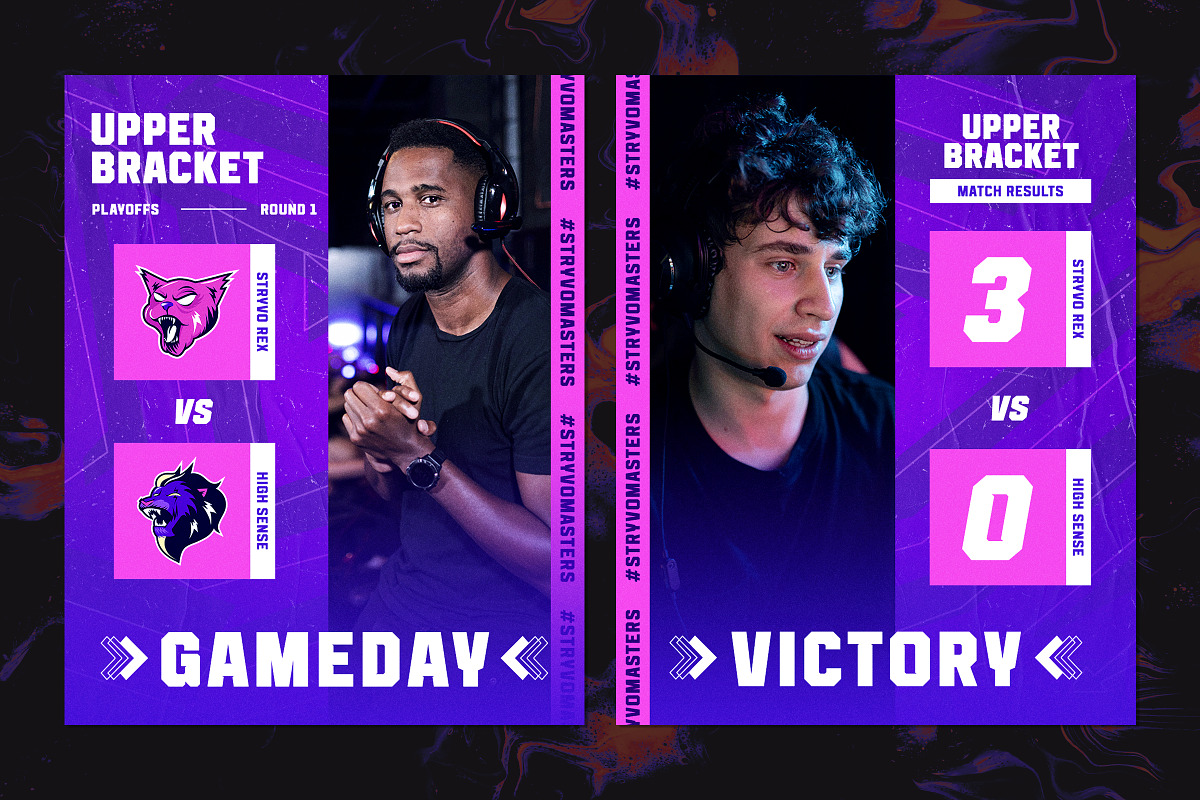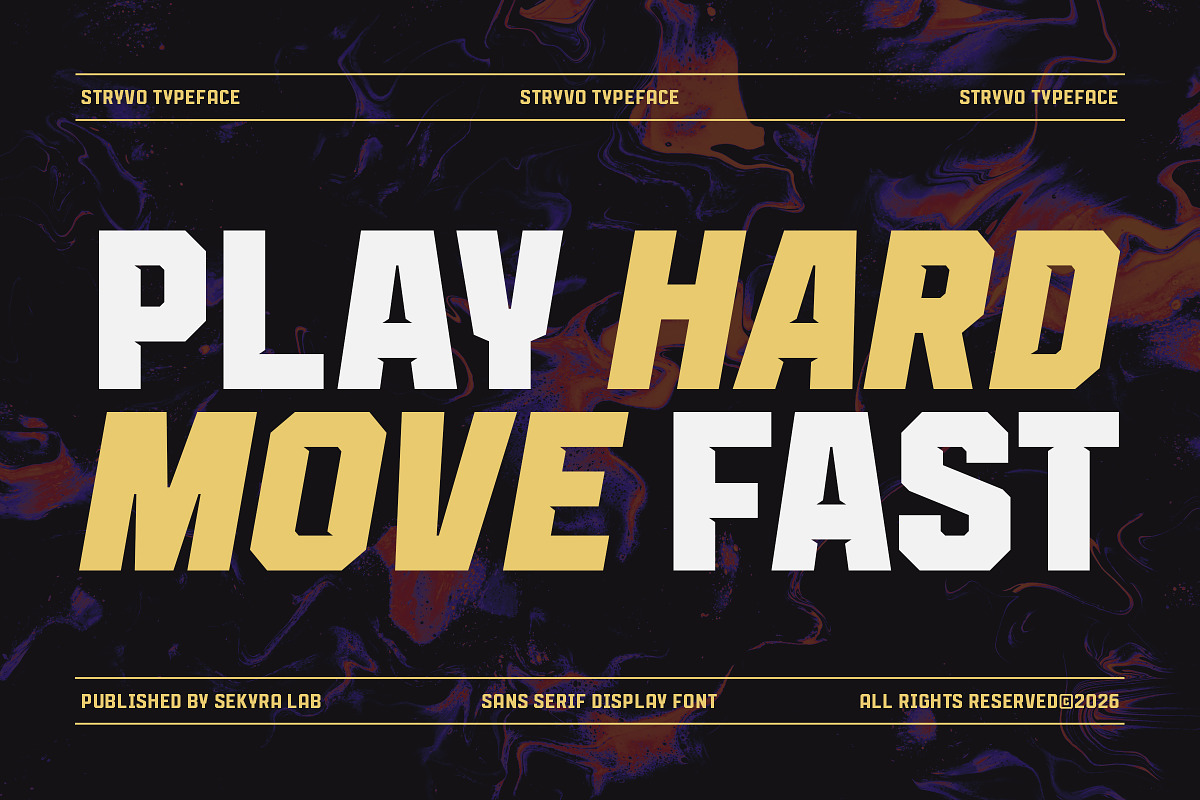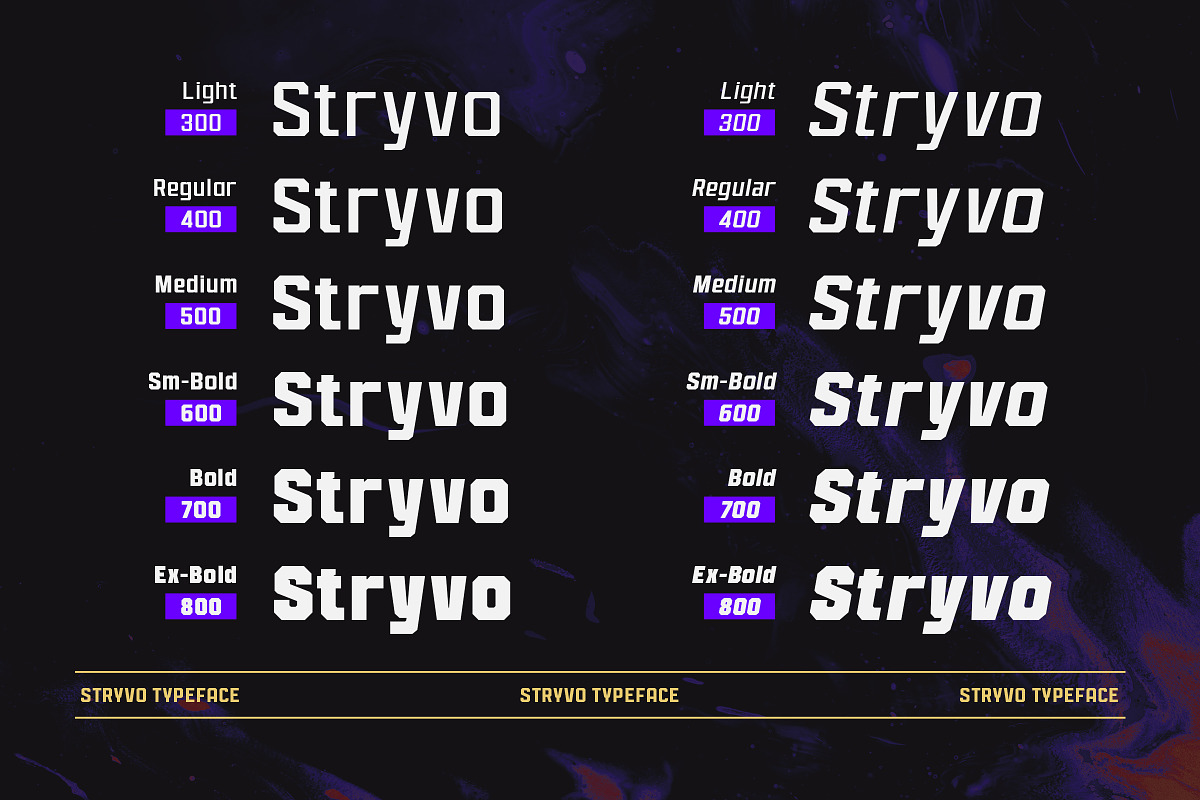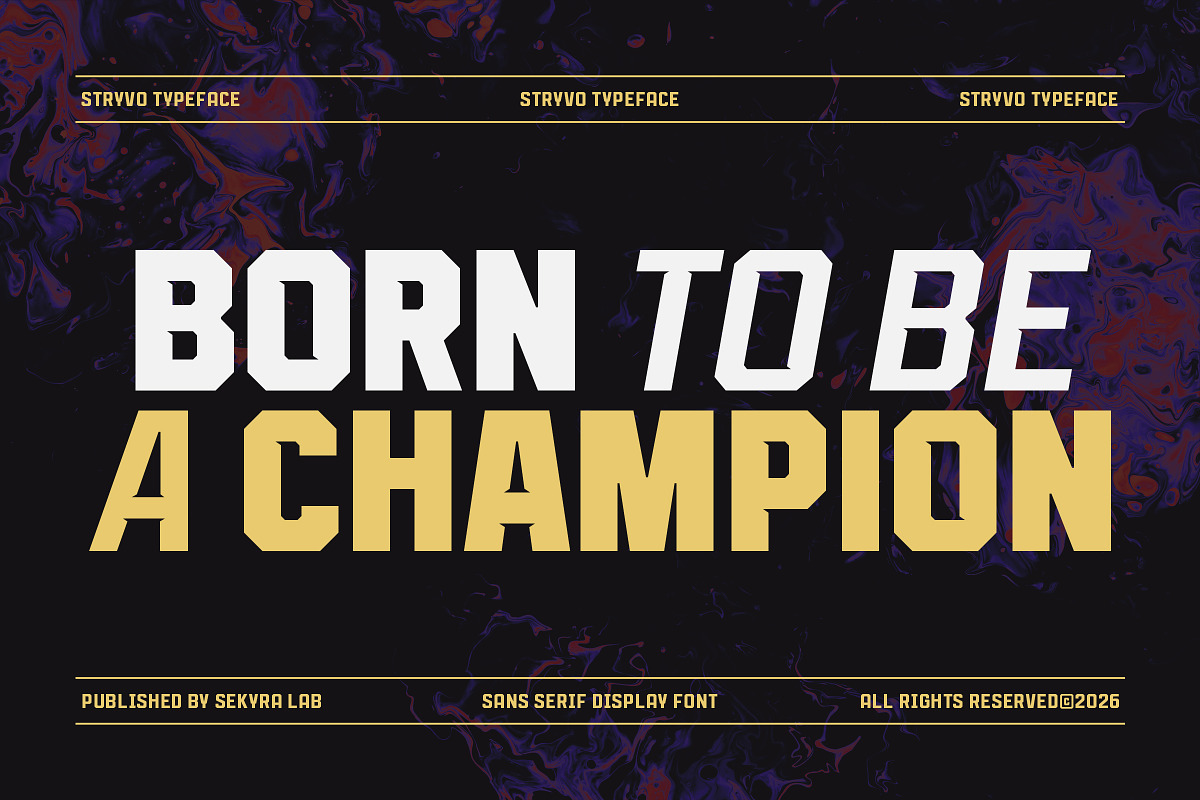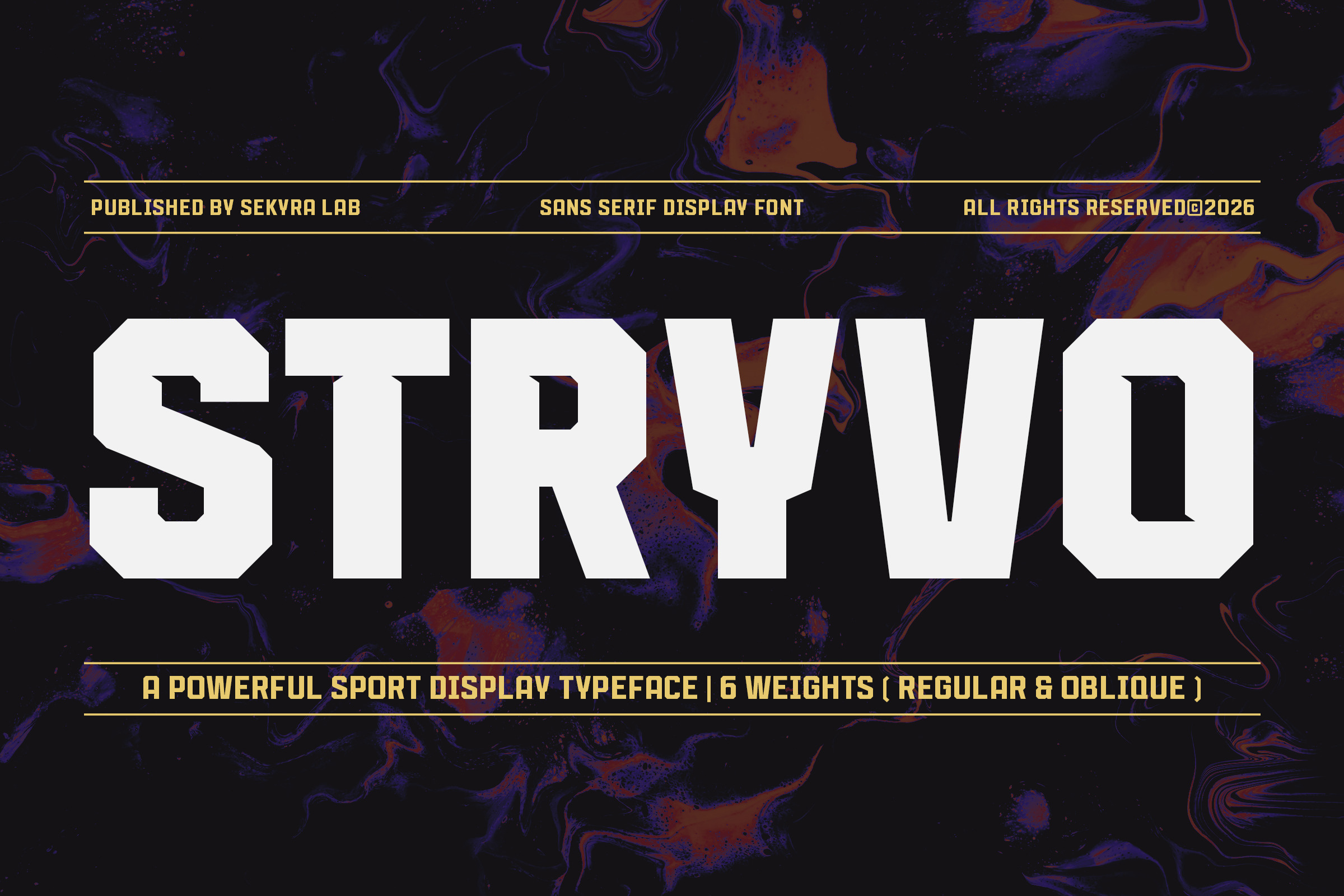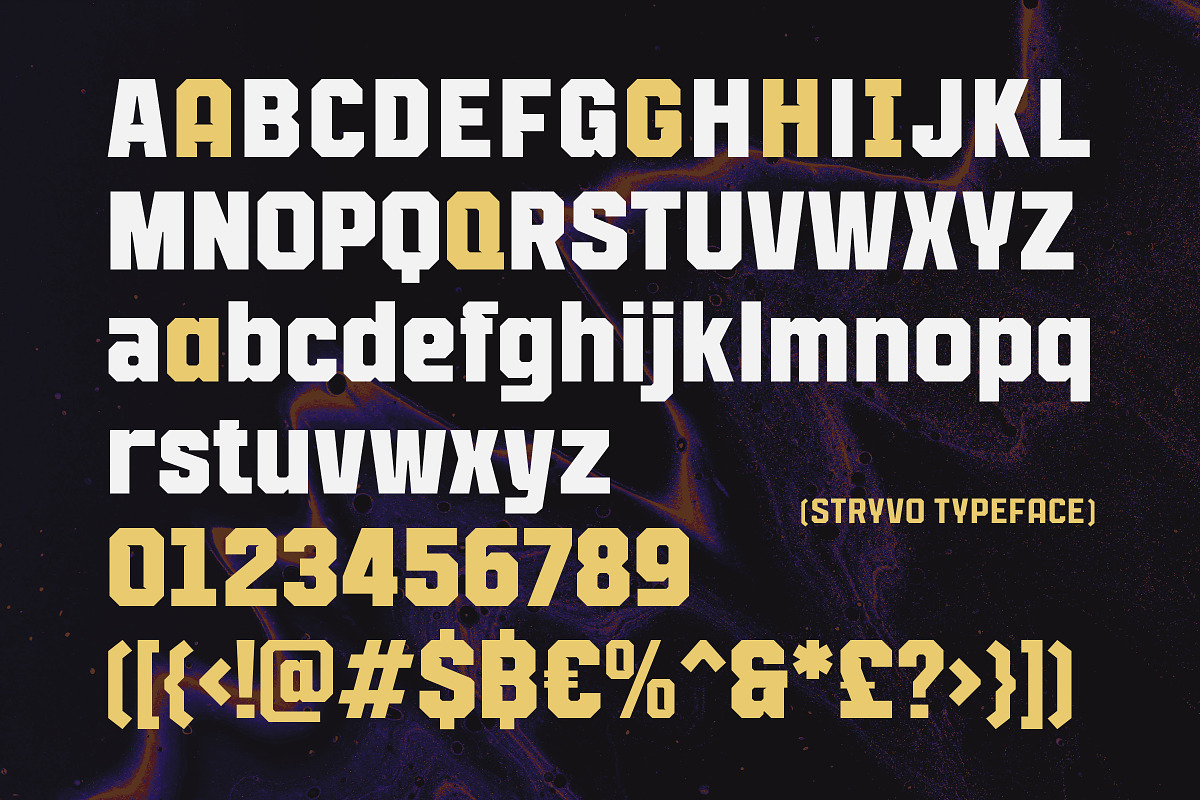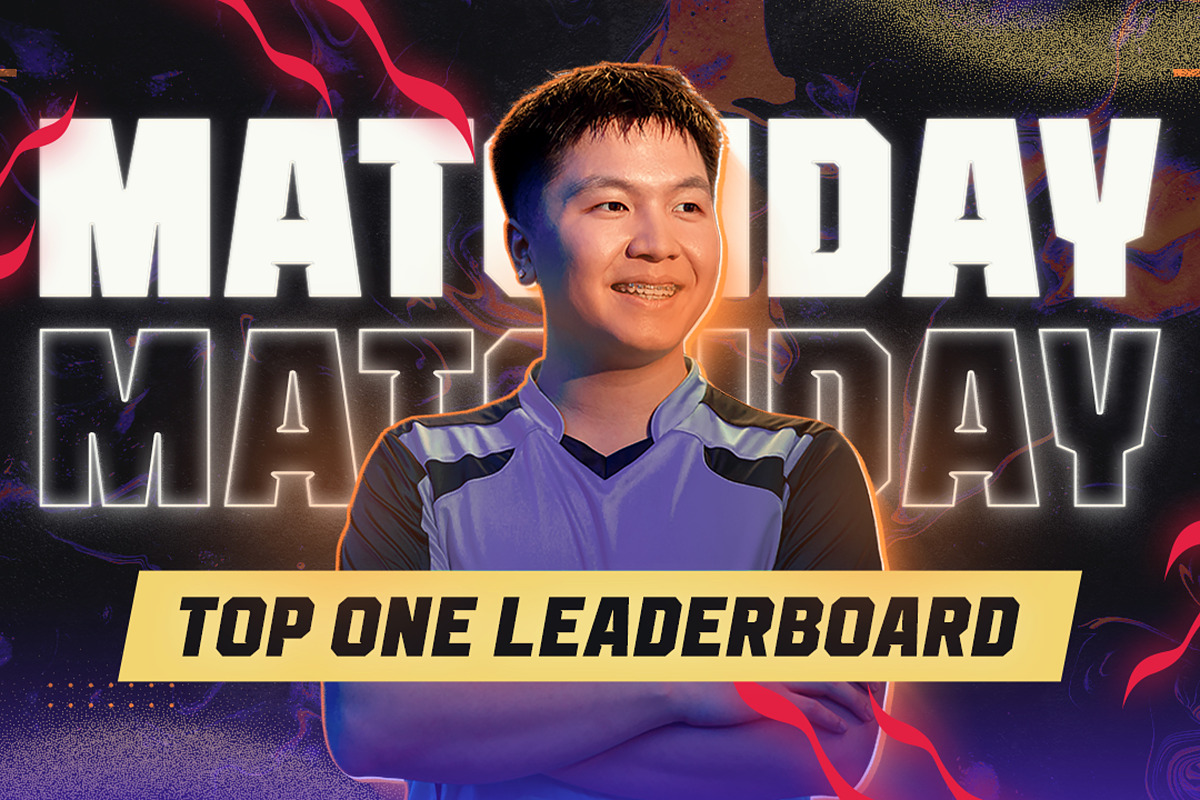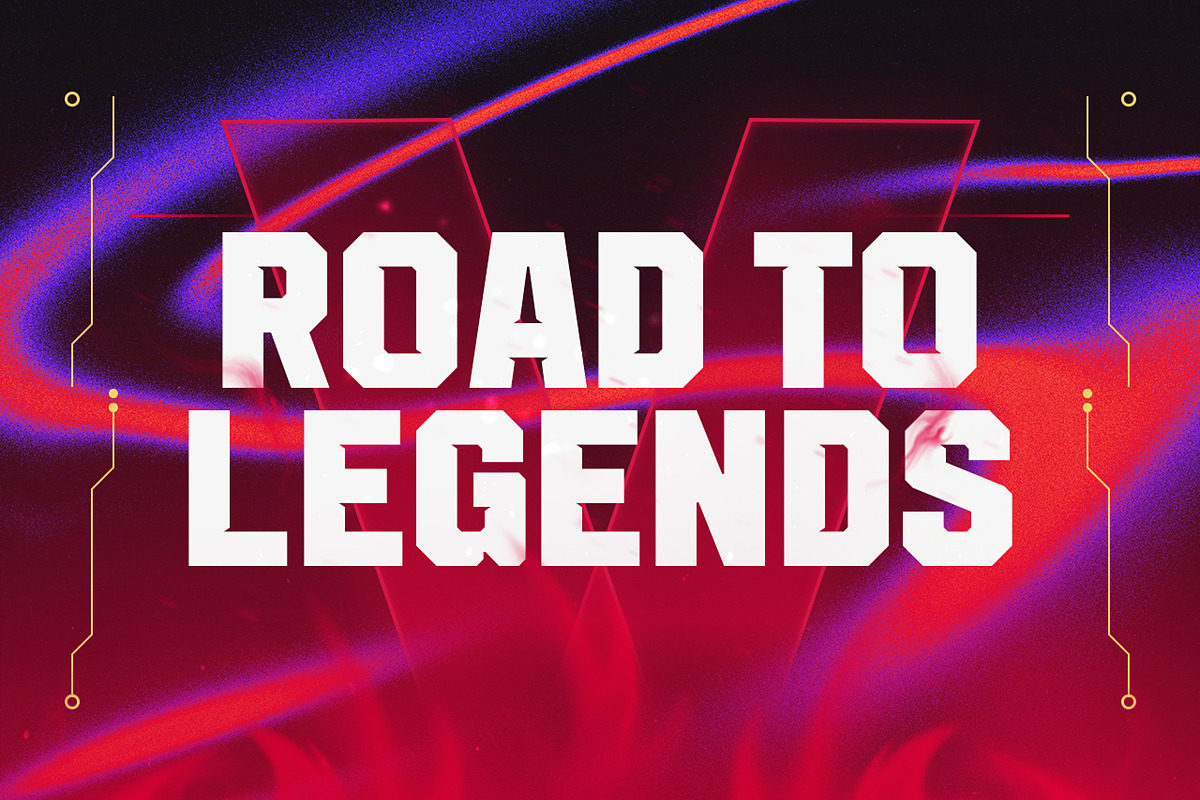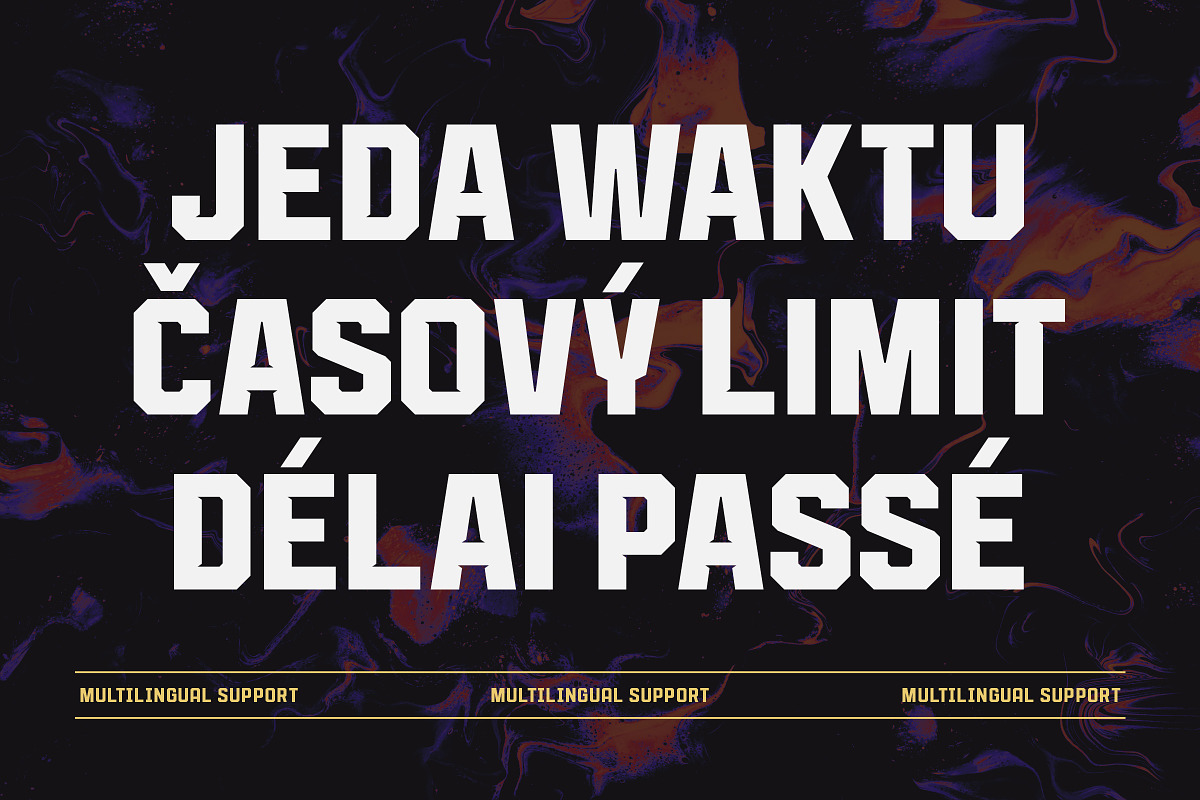
Stryvo Font Family – Esports Sans
Stryvo is a modern sport display font family designed for high-impact visuals, competitive branding, and futuristic digital layouts. Inspired by esports culture, athletic graphics, racing aesthetics, and modern tech interfaces, Stryvo delivers a strong and dynamic visual presence with sharp geometric forms and bold proportions.
Built for creators who need powerful typography that stands out across screens and print, Stryvo combines clean structure with aggressive sporty energy, making it ideal for modern display compositions.
The family includes 6 weights and 2 styles, giving you complete flexibility for layered typography systems, branding kits, broadcast graphics, gaming content, and promotional designs.
Perfect for esports branding, sports posters, gaming thumbnails, social media content, streaming overlays, racing visuals, UI headlines, team identities, apparel branding, event graphics, and futuristic creative projects.
Features: • 12 Fonts Included • 6 Weights: Light, Regular, Medium, Semi Bold, Bold, Extra Bold • 2 Styles: Regular & Oblique • Uppercase & Lowercase • Numbers & Symbols • Multilingual Support • Modern geometric sport aesthetic • Strong display readability • Perfect for digital and print design • Formats: OTF, TTF, WOFF, WOFF2